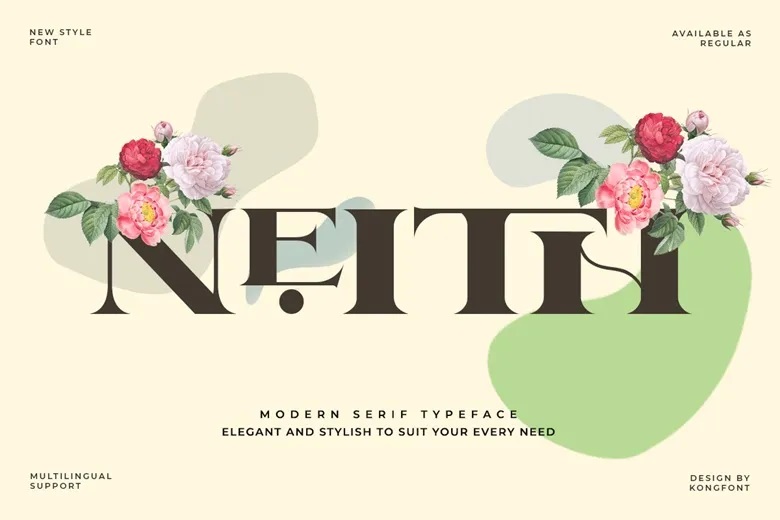
Neith Font
Neith Fonts are available as an option for all of us. Neith is an ancient with classic and modern impression. This impression is what makes this font different from other serif fonts. Neith Font has a simple shape and has a thin serif at the ends. It is curved lines which are outside the boundaries of the letters. This makes this font appear classic and elegant. The above explained characters make Neith Font one of the best fonts with a high compatibility rate while using it as wedding fonts.
Neith Font can be applied to wedding invitation cards but also posters, souvenirs. Fonts can use as digital font and be printed with the correct font size because of the legible font types. Apart from being a wedding font, Neith Font is also the best font for branding beauty products. It may use on packaging as well advertisement on websites and posters. This font also has a high compatibility attribute when used for social media, feed posts and Instagram stories.